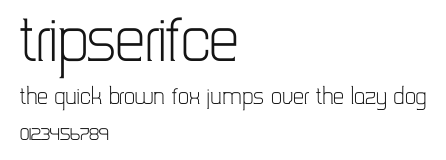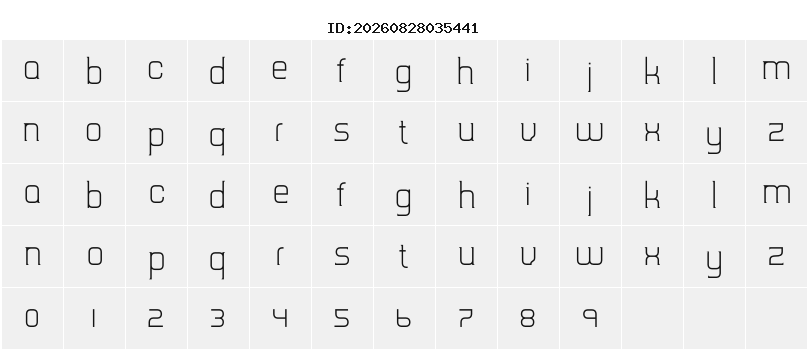
TripSerifCE Preview
• Font Name: TripSerifCE
• Full Font Name: TripSerifCE Light
• Designer: Matej Syxra
• Manufacturer: Matej Syxra & Jan Moravec, Page42
About TripSerifCE.ttf
TripSerifCE.ttf is a modern, elegant sans-serif font designed for ultimate readability and visual harmony. Perfect for branding, headlines, web design, and print materials.